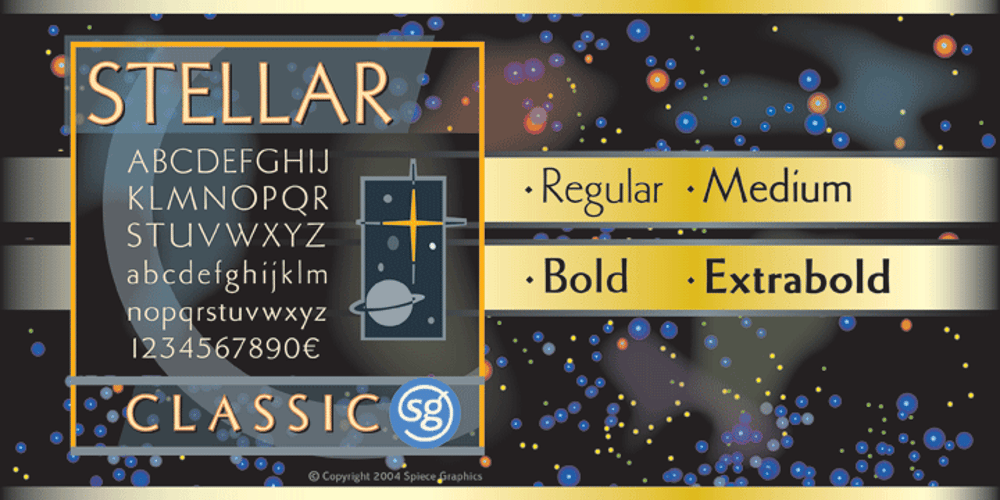
Stellar Classic SG
Stellar Classic SG font
Stellar Classic SG Font Family was designed by Robert Hunter Middleton, Jim Spiece and published by Spiece Graphics. Stellar Classic SG contains 4 styles and family package options. Designed by the renowned Robert Hunter Middleton of Chicago’s Ludlow Typograph Company, this “serifless roman” was first introduced in 1929. Middleton has created a transitional face linking the traditional thick and thin serifs of the times with the new Futura and Kabel design imports. With its slightly flared main strokes, Stellar predates in many respects Hermann Zapf’s Optima by thirty years. Highly effective where an elegant and warm feeling is desired. This typeface is faithful to the original letterforms of the Stellar design. Stellar Classic is also available in the OpenType Std format. Some new characters have been added as stylistic alternates in this new version. Stylistic alternates and other advanced features currently work in Adobe Creative Suite InDesign, Creative Suite Illustrator, and Quark XPress 7. Check for OpenType advanced feature support in other applications as it gradually becomes available with upgrades.